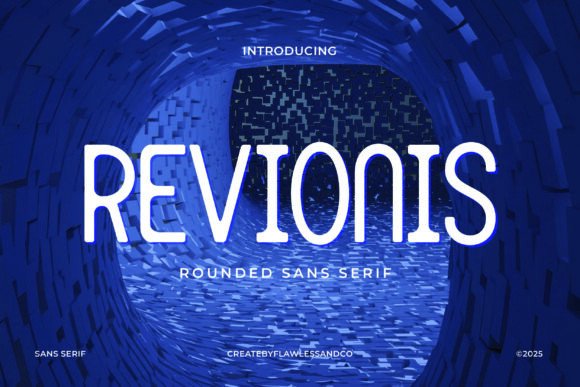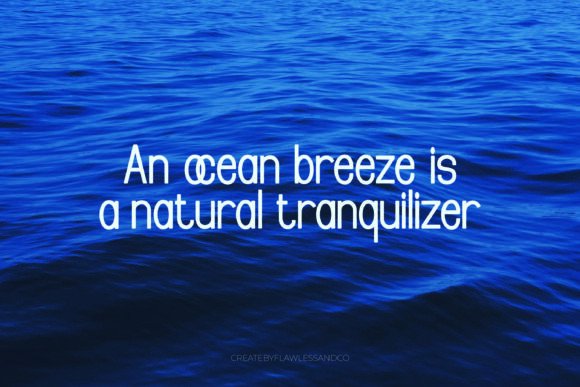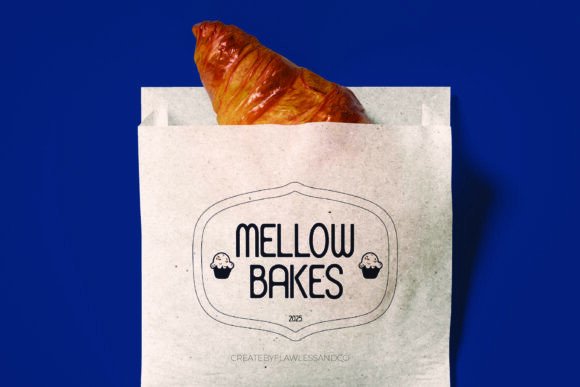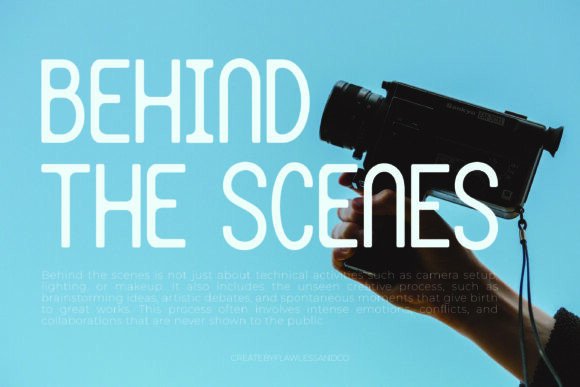
Revionis Font: Clean Sans Serif for Modern Logo Design & Branding
About the Revionis Font
Step up your design game with Revionis Font, a font that exudes confidence and style. Revionis is a clean and modern sans serif font designed to bring simplicity and sophistication to your projects. With its sleek letterforms and balanced proportions, this font is perfect for branding, logos, website headers, editorial layouts, and social media graphics. Its minimalistic style makes it versatile and easy to pair with other typefaces, making it a great choice for both professional and creative designs.
Revionis excels in headline applications, branding materials, and short-form content where its clean lines and modern aesthetic shine. It’s particularly effective for conveying a sense of sophistication and professionalism. However, its minimalist nature makes it less suitable for large blocks of body text or UI elements requiring high readability at small sizes.
For optimal pairings, consider complementing Revionis with a warm serif like Playfair Display for a touch of classic elegance, or a geometric sans-serif like Montserrat for a contemporary, balanced feel. A playful script font like Great Vibes could add a touch of personality to specific elements within a design using Revionis.
The overall personality of Revionis is sophisticated and modern, projecting a sense of calm confidence. It’s ideal for brands aiming for a clean, approachable, yet undeniably premium image.